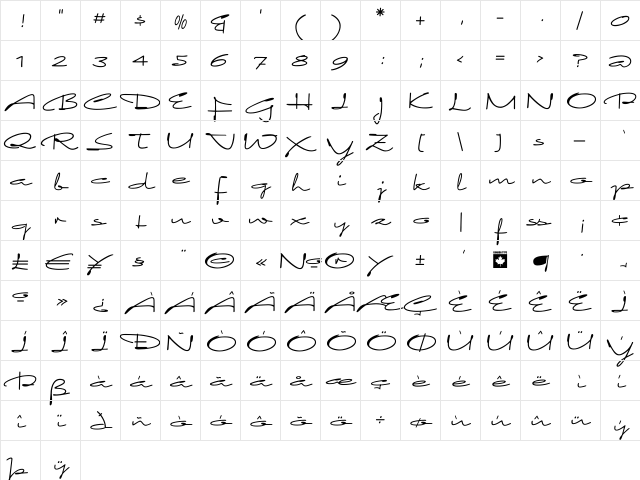
Sincerely Regular
| Foundry | Canada Type |
Design Context for Sincerely Typeface
Sincerely is a composed and adaptable typeface that performs quietly and consistently across a wide range of design contexts.